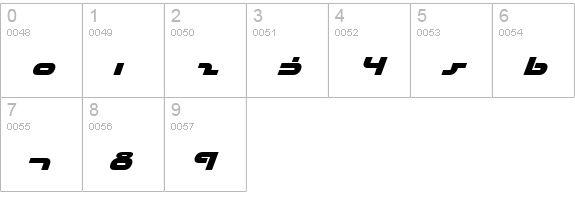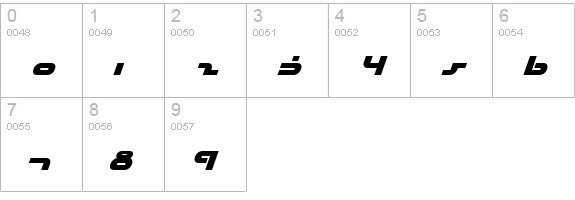
uni-sol italic Font Details
uni-sol italic is a distinctive, italic variant in the uni typeface family \xE2\x80\x94 well suited to design and typography projects.
Uni-Sol Italic is a stunning and versatile font that effortlessly combines elegance with modern appeal. Its sleek and sophisticated design adds a touch of refinement to any project, making it perfect for both professional and creative endeavors. With its italicized appearance, Uni-Sol Italic exudes a sense of fluidity and movement, creating a unique visual experience that captures attention and draws the eye. Its graceful curves and slanted letterforms lend a sense of dynamism, making it ideal for conveying a sense of energy and excitement. Whether you are designing a logo, crafting a headline, or creating eye-catching graphics, Uni-Sol Italic will elevate your work to new heights. Its legibility and clarity ensure that your message is communicated effectively, while its distinctive style adds a touch of flair. One of the best aspects of Uni-Sol Italic is that it is freely available to download at FontsMarket.com. This means that you can access this incredible font without having to worry about any additional costs. It's an excellent choice for both personal and commercial projects, providing you with the freedom to create without limitations. With Uni-Sol Italic, your designs will stand out from the crowd, making a lasting impression on your audience. Its versatility and timeless appeal make it suitable for a wide range of applications, ensuring that it will remain a go-to font for years to come. Don't miss out on this incredible opportunity to enhance your designs with Uni-Sol Italic. Download it today at FontsMarket.com and experience the beauty and freedom that this font has to offer.